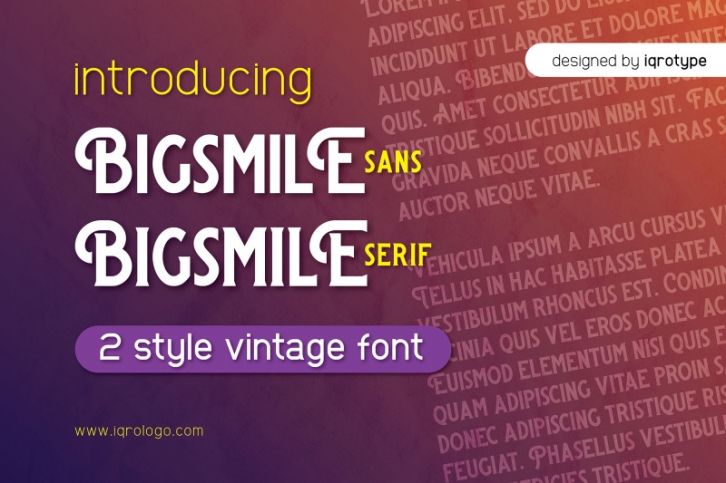
Bigsmile font present to you provide alternatives to help you create awesome designs. There are two choices in sans and serif style that we made with high level of neatness and detail. Grab this font now!